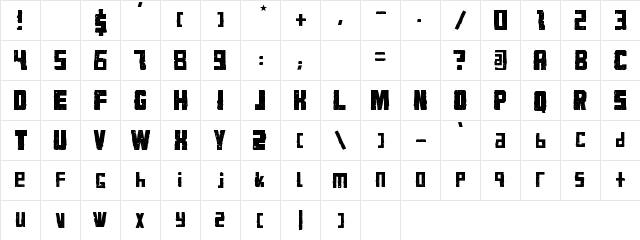
VKB KonQa Capitalist
| Designer | Victor Bagu |
Design Context for VKB KonQa Typeface
VKB KonQa is a composed and adaptable typeface that performs quietly and consistently across a wide range of design contexts.